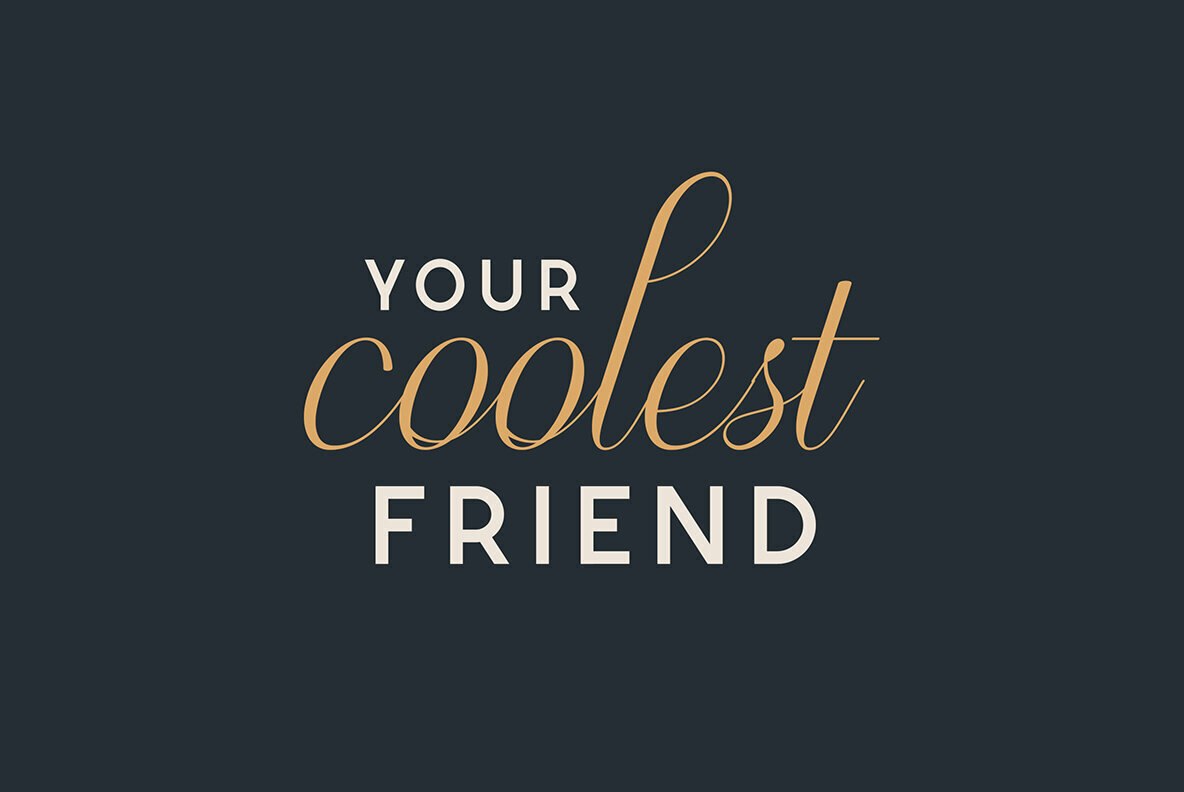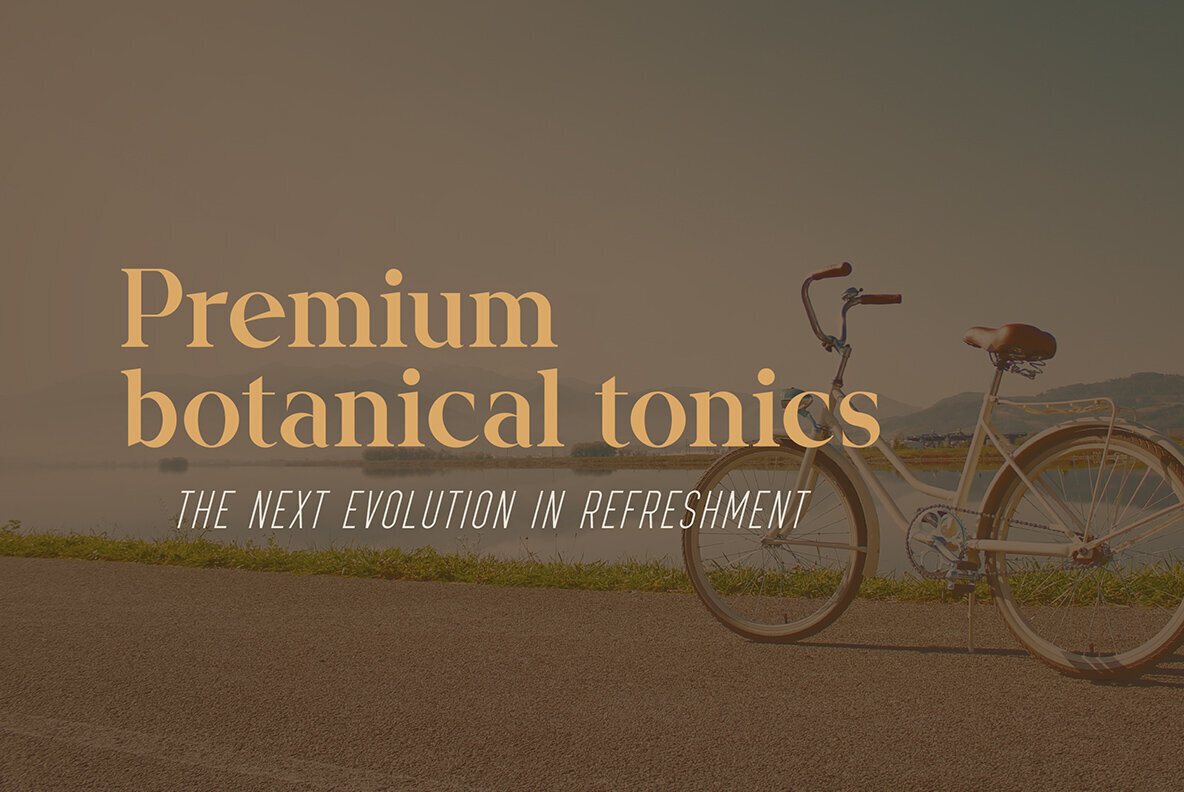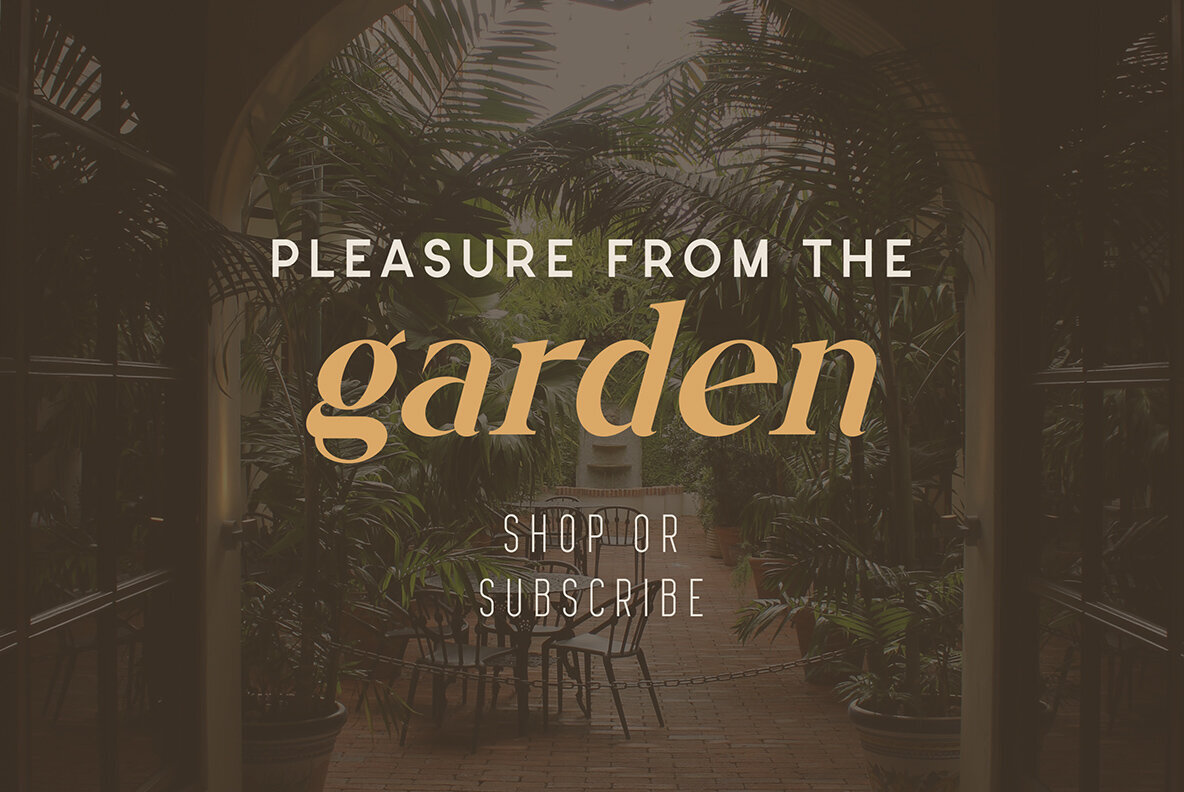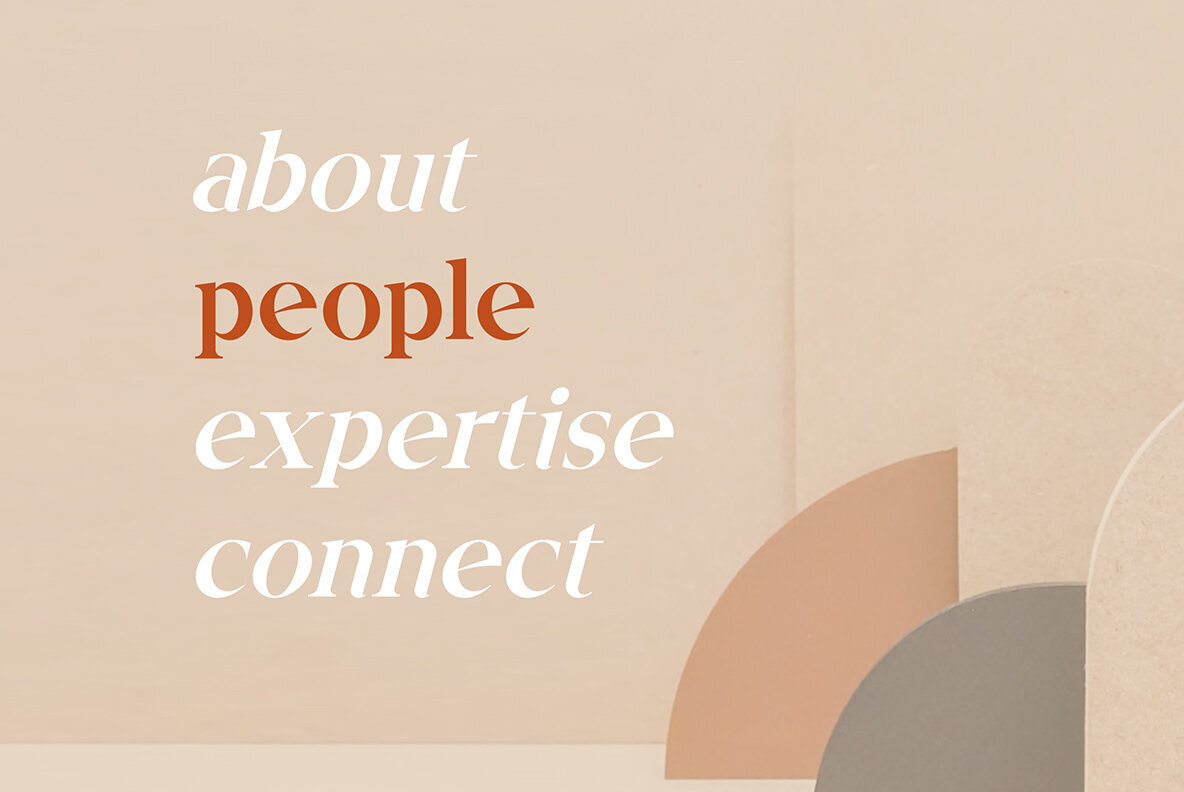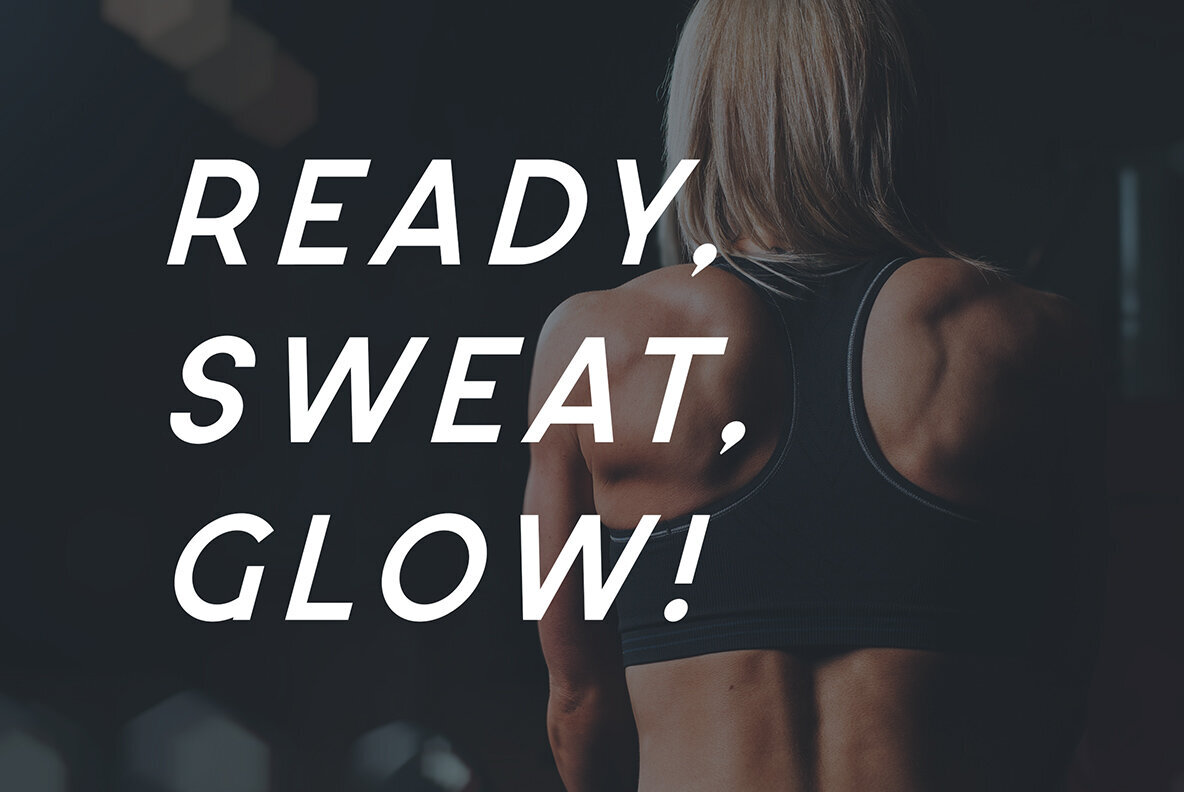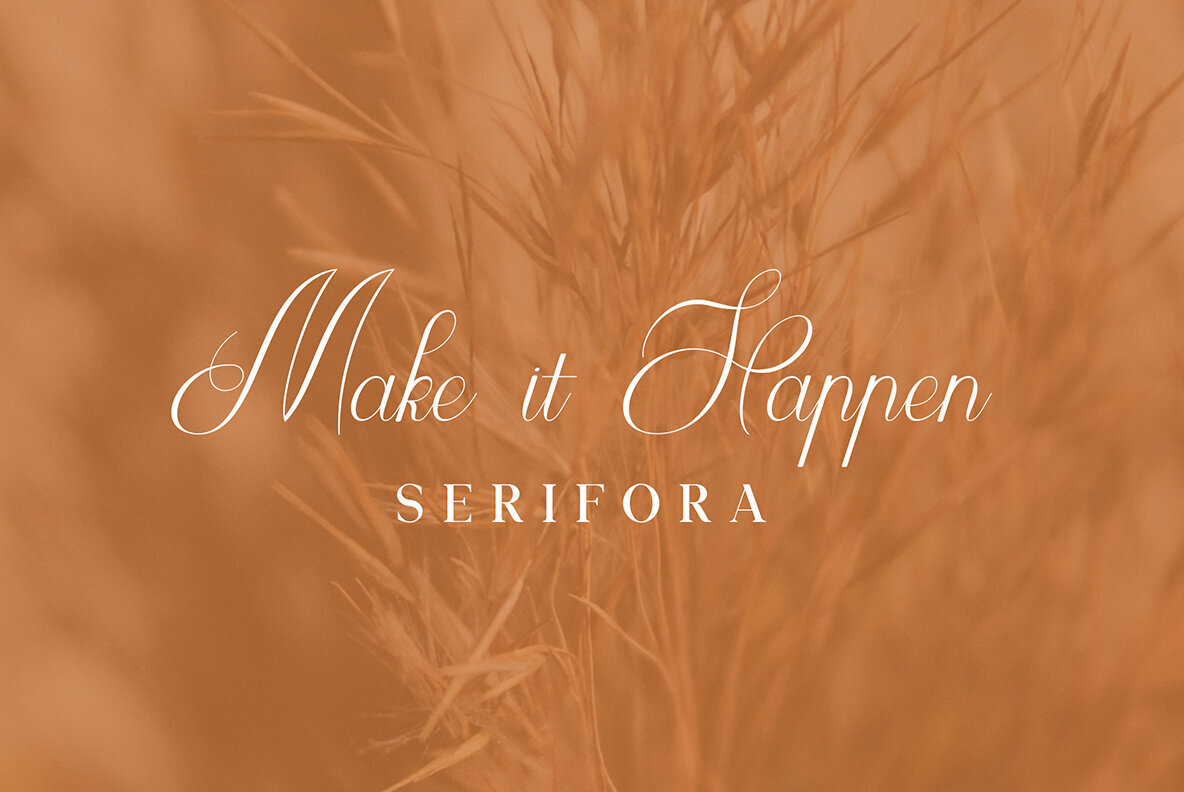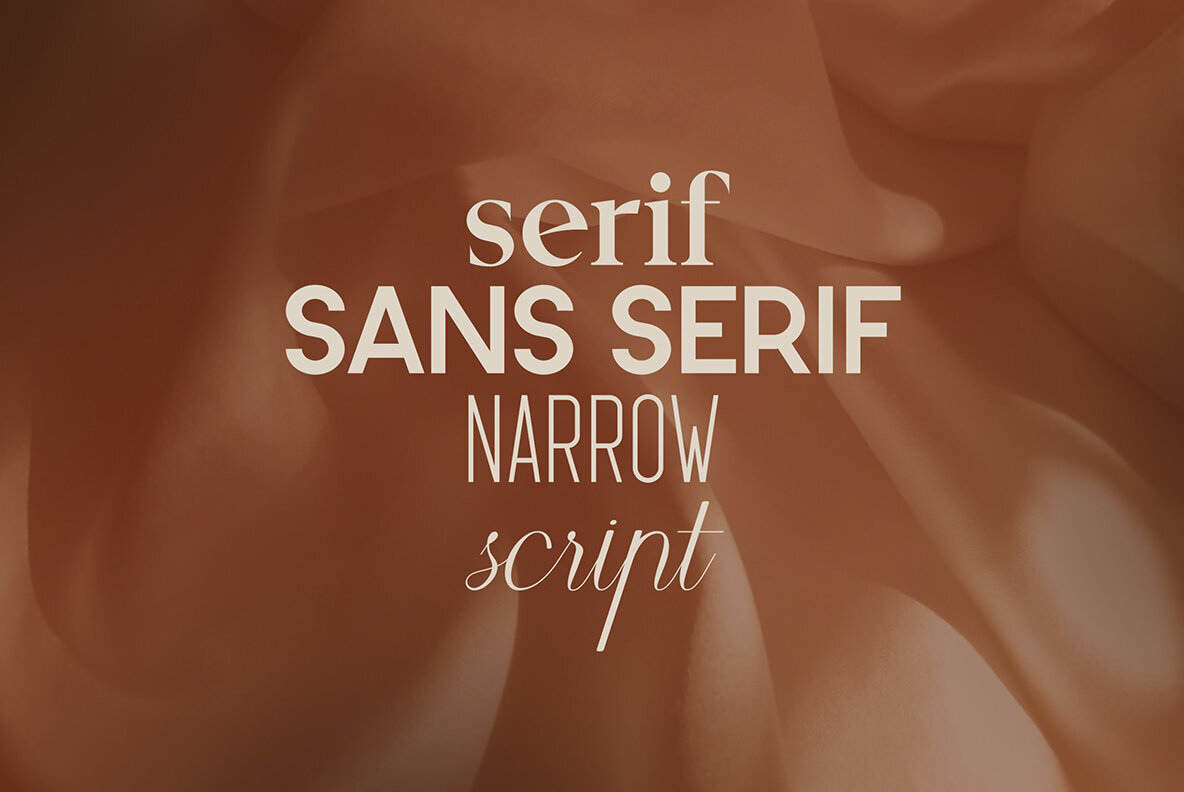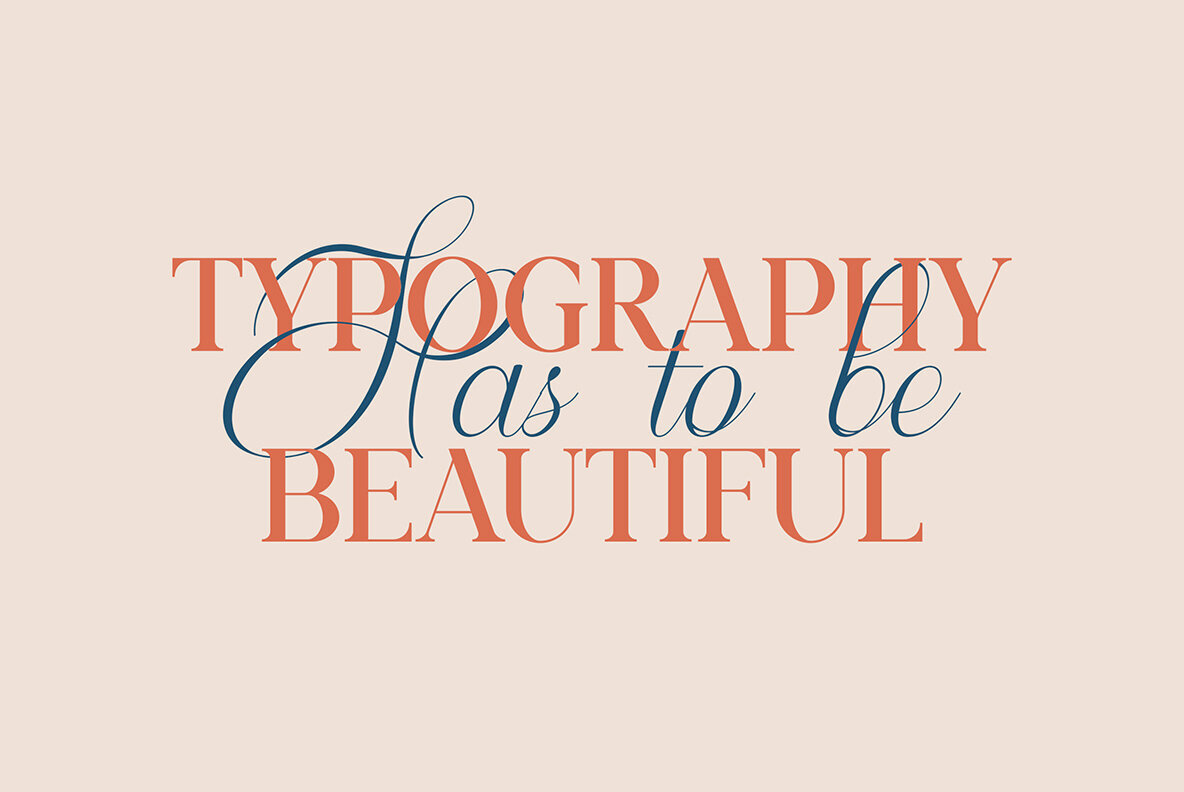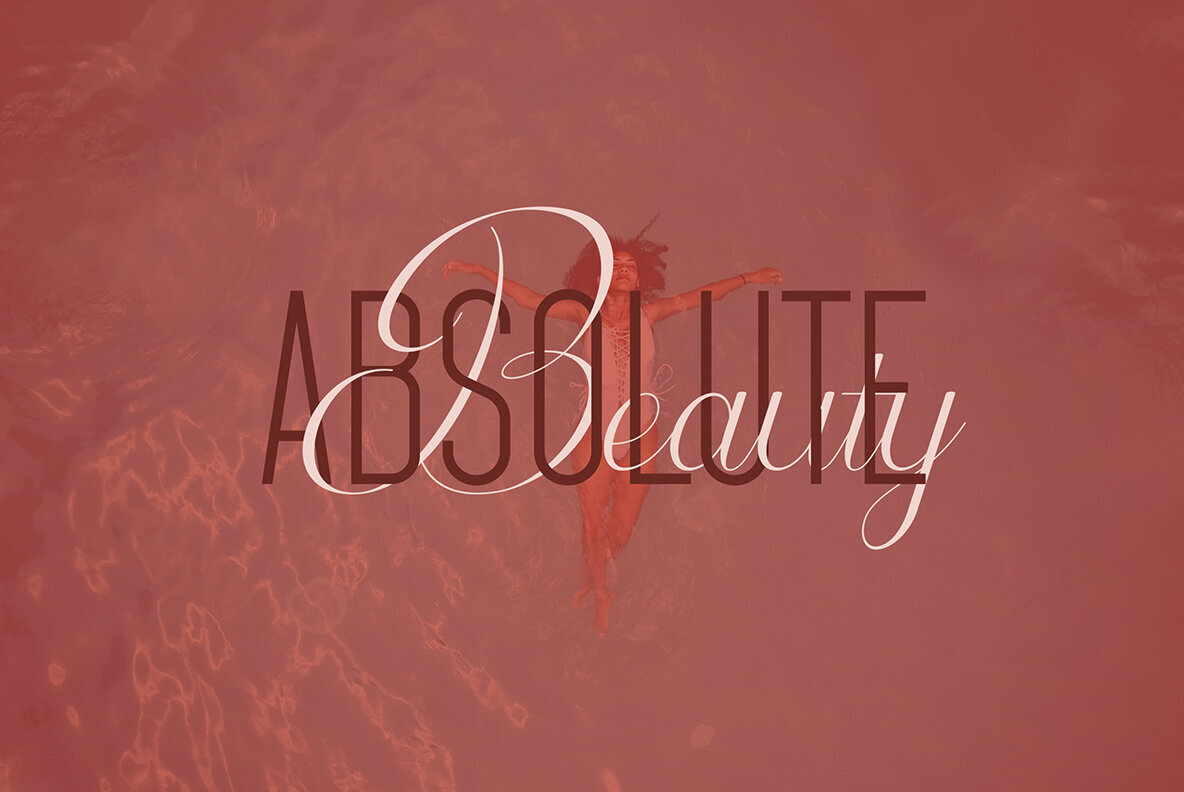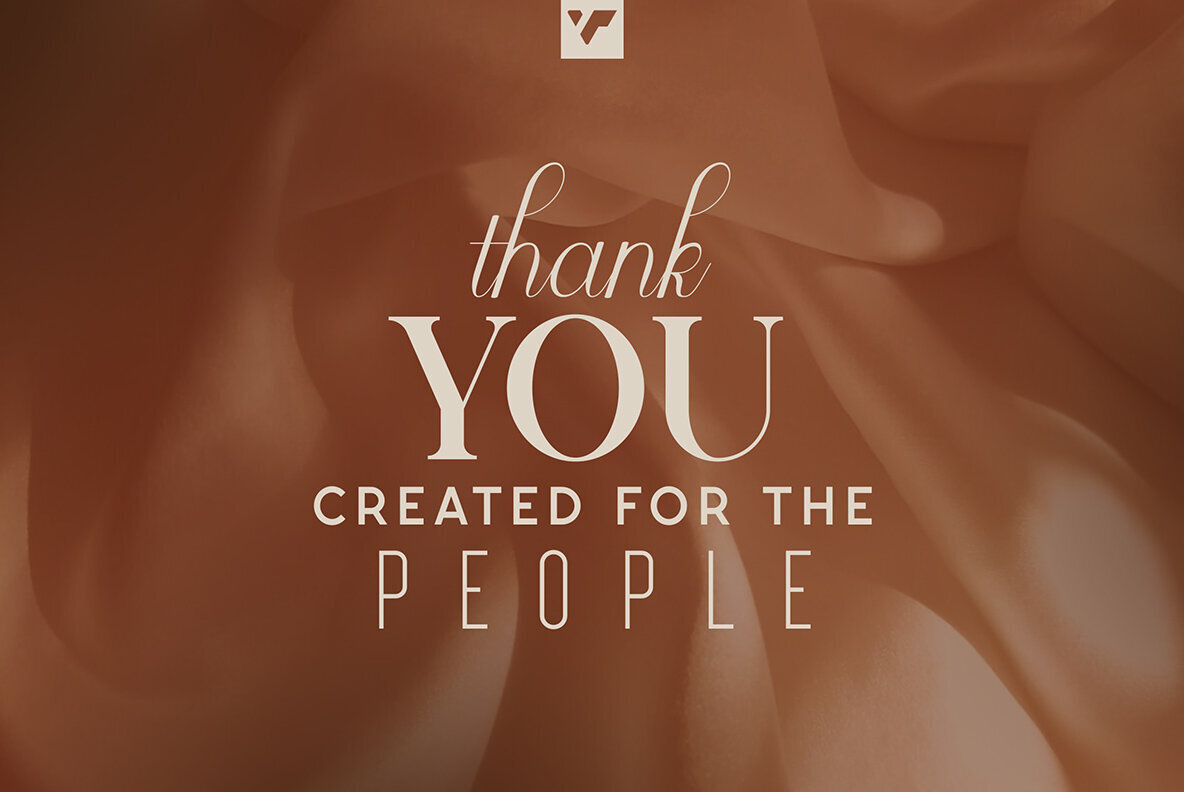
Serifora Font
Serifora Narrow
Serifora Narrow Italic
Serifora Sans Serif
Serifora Sans Serif Italic
Serifora Script
Serifora Script Italic
Serifora Serif
Serifora Serif Italic
Serifora is a versatile and elegant typeface that offers serif, sans serif, narrow, and script versions, along with italics. With support for 87 languages, it caters to a wide range of design needs. Its classic serifs, modern sans serif, condensed narrow style, and artistic script variant provide options for various design styles and projects. Serifora's italic versions add emphasis and visual interest. It is a go-to choice for both print and digital media, ensuring clear communication and captivating typography.